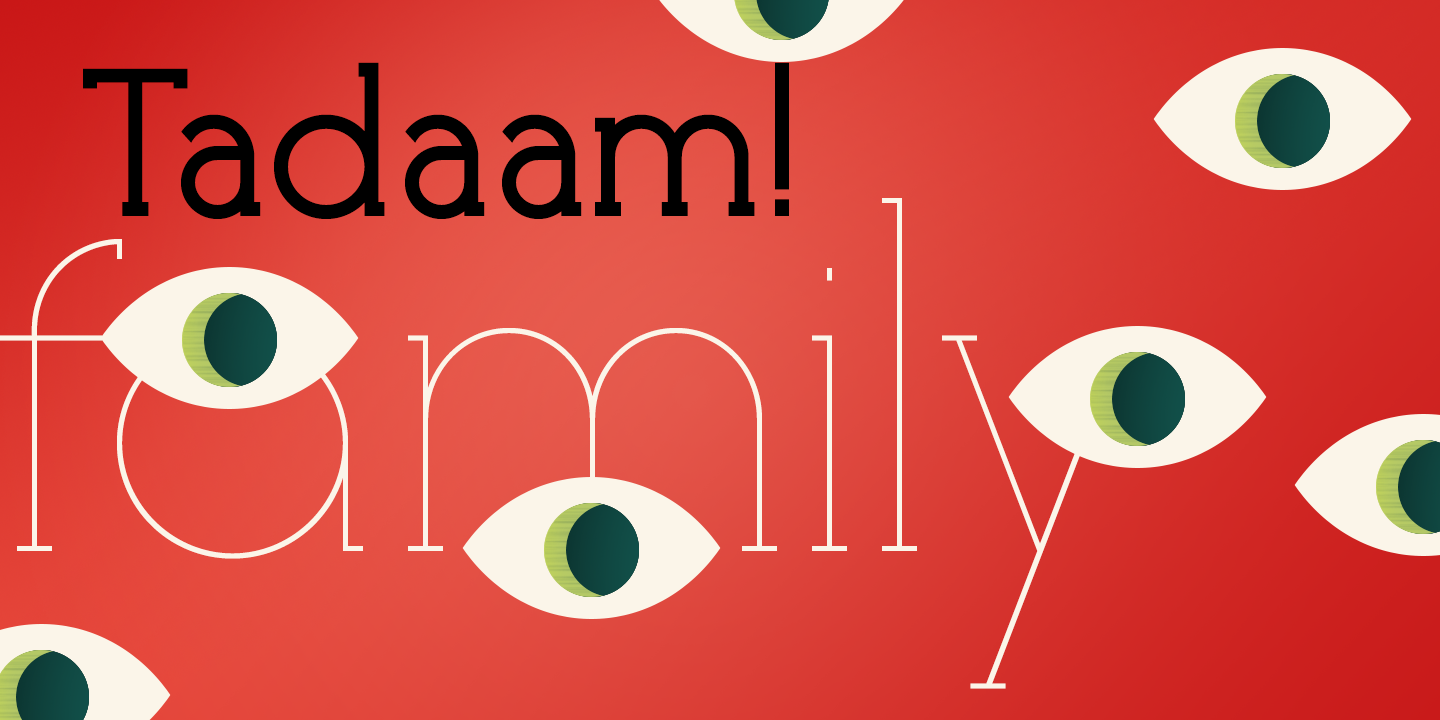
Tadaam Free Download
Add a burst of fun and creativity to your designs with Tadaam Font Free Download. This playful and energetic display typeface features quirky letterforms, bold shapes, and a childlike charm—making it perfect for comic-style graphics, kids’ products, birthday invitations, educational materials, and fun branding projects. Tadaam Font Free Download brings joyful expression and visual excitement to any layout.
With its cartoonish personality and exaggerated forms, Tadaam Font is ideal for headlines, logos, packaging, and posters where you want to capture attention with a lighthearted tone. Whether you’re designing for entertainment, events, or youthful audiences, this font delivers instant fun and flair.